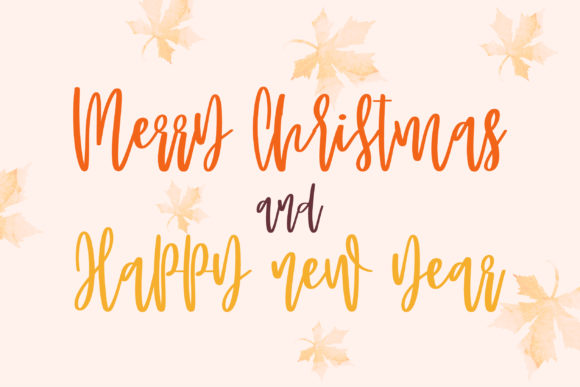
Falling Autumn Leaves Font
Falling Autumn Leaves is a sweet and relaxed handwritten font. Fall in love with its incredibly versatile style and use it to create gorgeous wedding invitations, beautiful stationary art, eye-catching social media posts, and much more!